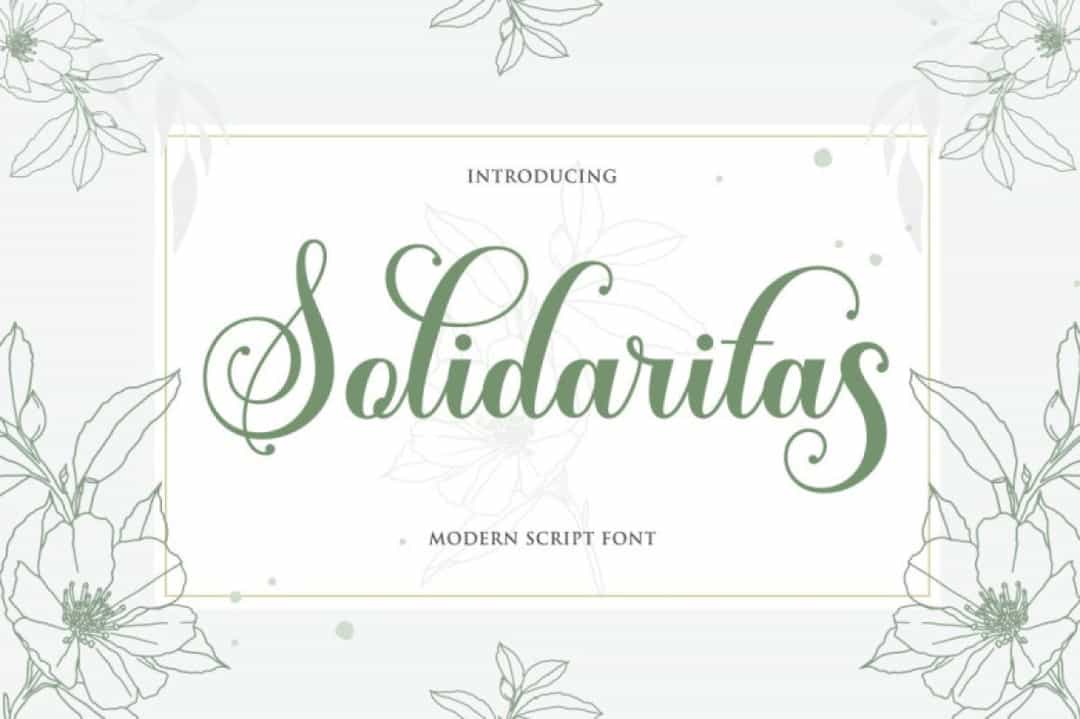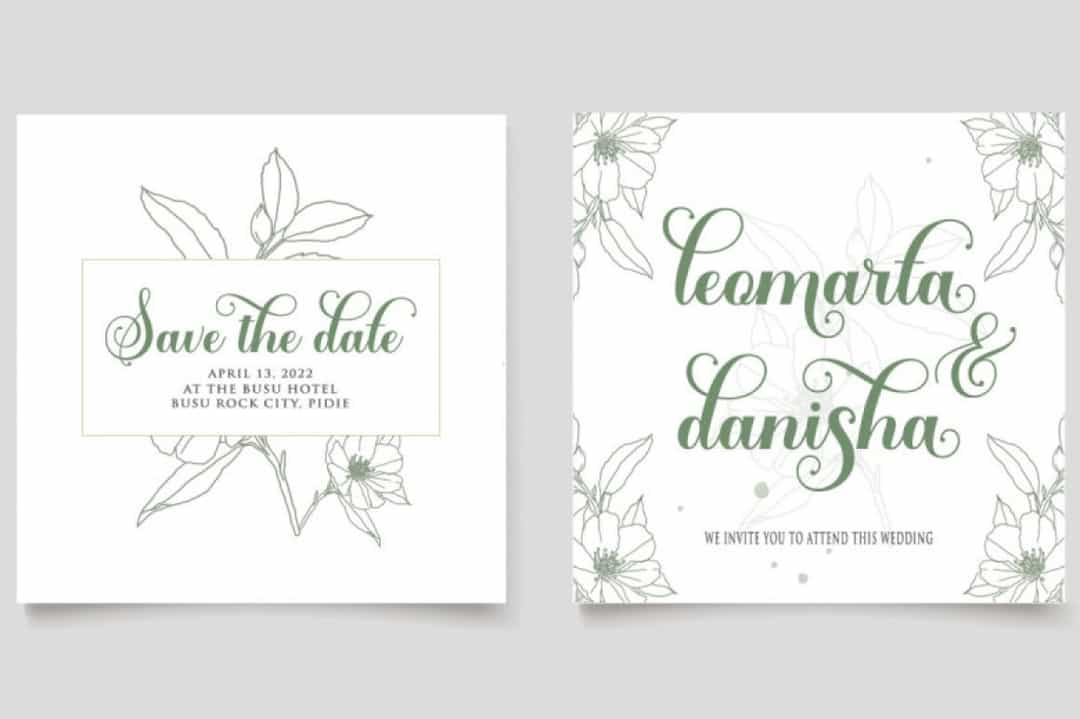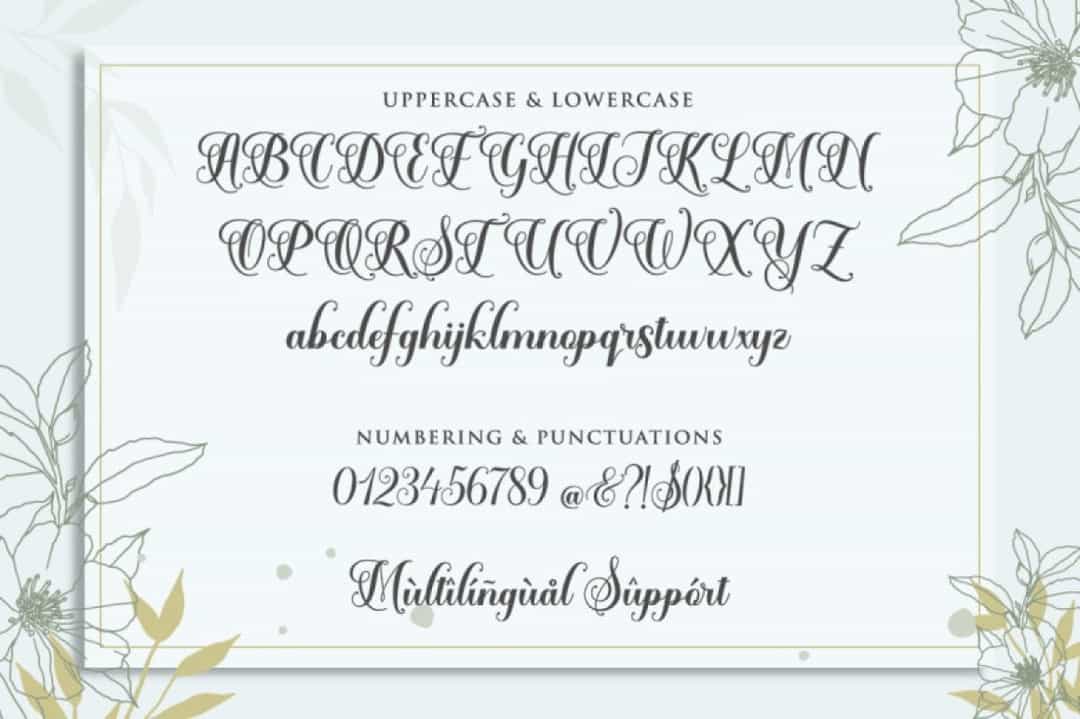
Solidaritas is an elegant but sweet script font with characters swooping along its bottom edge. Casual yet sophisticated in appearance, Solidaritas suits many uses such as wedding invitations, T-shirt logos, letterhead headings and signage like news labels badges posters etc.